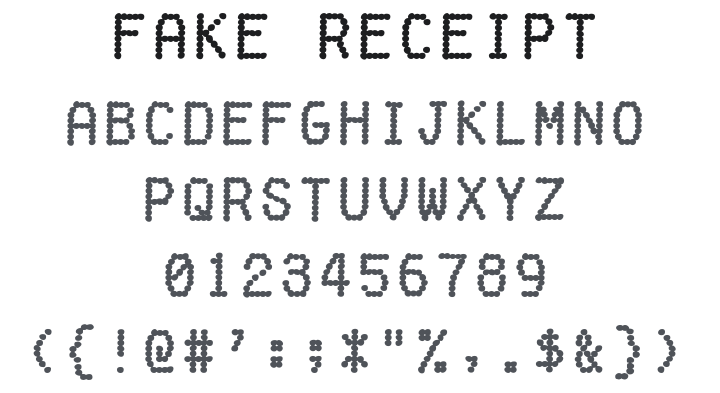
Fake Receipt Font
About Fake Receipt
Fake Receipt is a lo-fi bitmap typeface that faithfully mimics the dot-matrix print of a late 20th-century cash register — slightly pixelated, monospaced, and charmingly low-resolution. Its utilitarian character carries instant nostalgic recognition. Perfect for retro-themed packaging, novelty receipts, point-of-sale aesthetics, cyberpunk designs, zine layouts, and any project channeling everyday analog nostalgia.